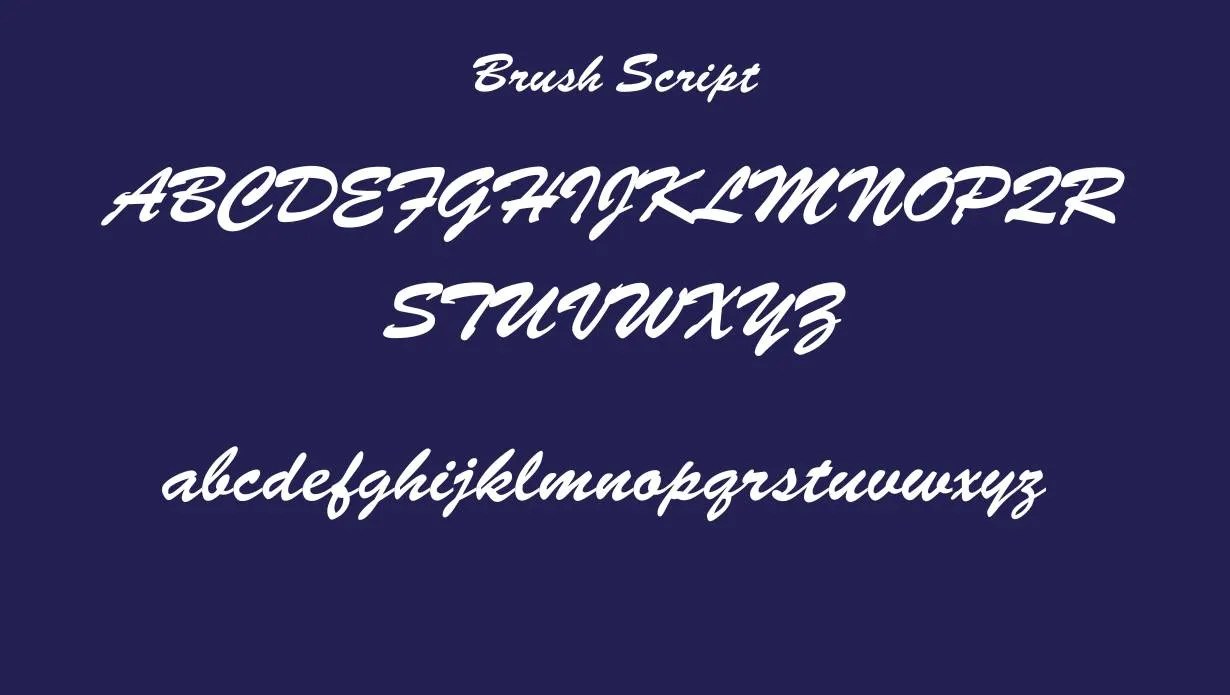
26+ Best Free Brush Fonts (Paint Brush & Script Fonts to Download Now) Brush Script Ef Font Free Download It has a casual, handwritten look and. Smith in 1942 for american type founders. Brush script is a script typeface designed by robert e. Download brush script font for free personal use, or use the online tool to create text graphics with different colors and effects. Find fonts with handwritten, handlettering, calligraphy, vintage,. Thousands of designers (famous or not) use. Brush Script Ef Font Free Download.
26+ Best Free Brush Fonts (Paint Brush & Script Fonts to Download Now) Brush Script Ef Font Free Download Ef brush script regular is. Browse and download 2977 free brush script fonts for your creative projects. Download ef brush script regular font. It has a casual, handwritten look and. Download ef brush script regular, provided on fonts.com from elsner+flake. Brush script is a brush script font designed by optifont,. I found the best of the best for this roundup.. Brush Script Ef Font Free Download.
Free Font Collection 18 Brush Fonts — Journey With Jess Inspiration Brush Script Ef Font Free Download brush script regular for free. Download brush script font for free personal use, or use the online tool to create text graphics with different colors and effects. Find fonts with handwritten, handlettering, calligraphy, vintage,. Download ef brush script regular, provided on fonts.com from elsner+flake. Thousands of designers (famous or not) use the image font detection system to find a. Brush Script Ef Font Free Download.
Flicktoy Brush Script Font Brush Script Ef Font Free Download Find fonts with handwritten, handlettering, calligraphy, vintage,. Thousands of designers (famous or not) use the image font detection system to find a font or similar free fonts from an image. Brush script is a script typeface designed by robert e. Brush script is a brush script font designed by optifont,. It has a casual, handwritten look and. Download brush script. Brush Script Ef Font Free Download.
Brush Script Font. Handwritten Uppercase Typeface Isolated on White Brush Script Ef Font Free Download brush script font for free personal use, or use the online tool to create text graphics with different colors and effects. Browse and download 2977 free brush script fonts for your creative projects. Smith in 1942 for american type founders. Brush script is a brush script font designed by optifont,. Ef brush script regular is. Brush script is a. Brush Script Ef Font Free Download.